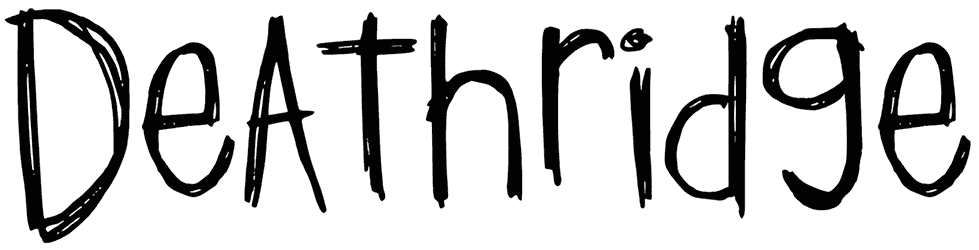
Deathridge Font
Unlike precise geometric fonts that have a digital and machine-like feel, adding Deathridge to your projects can create an eerie feel. This horror font is located right at the intersection of script fonts and scary spaces and is designed by combining continuous lines, lowercase, and uppercase letters.
By using this emo font, you can create commonalities between a personal touch and a feeling of horror to make a different feeling in logos, horror movies, and police books.